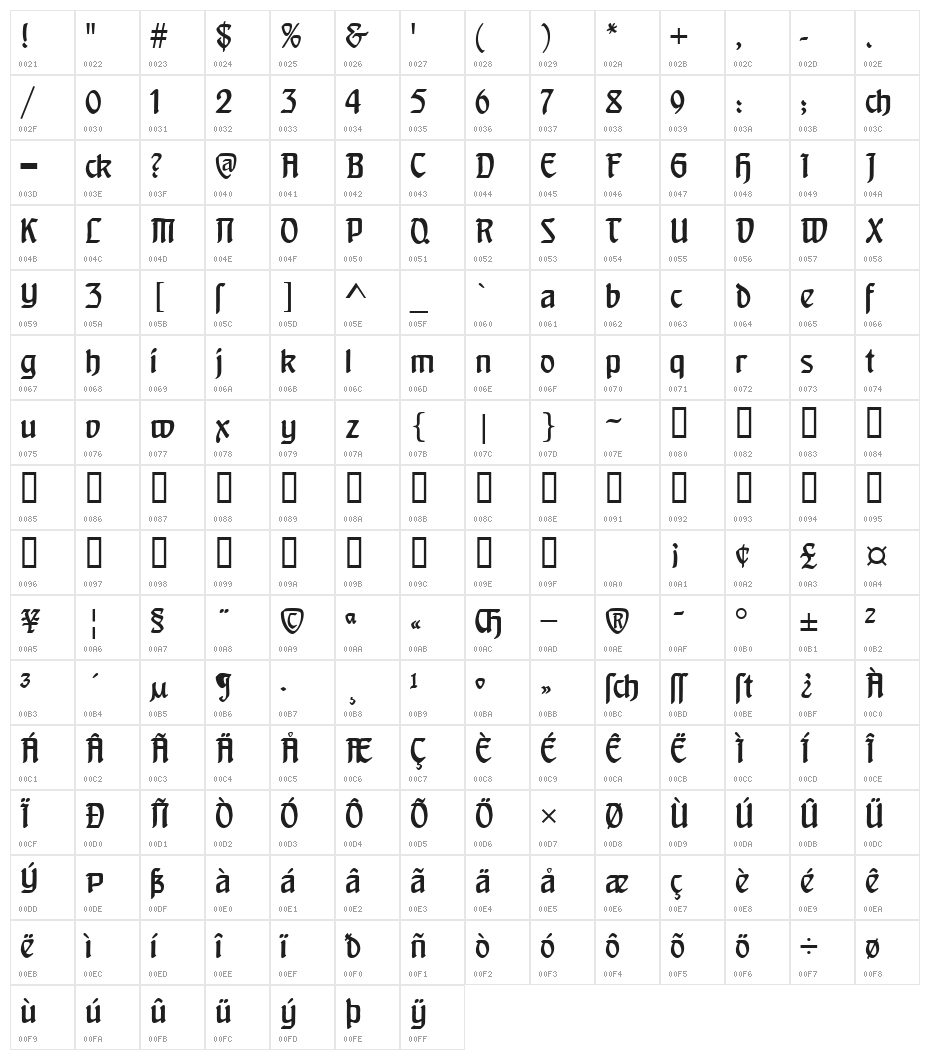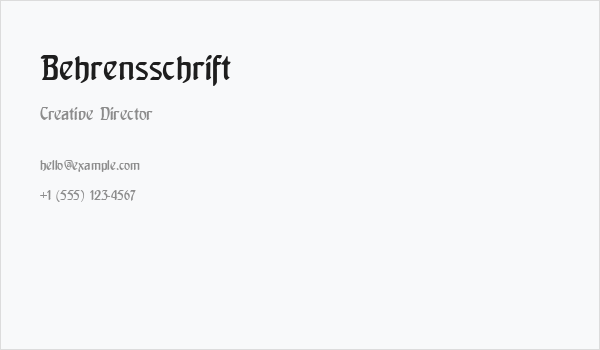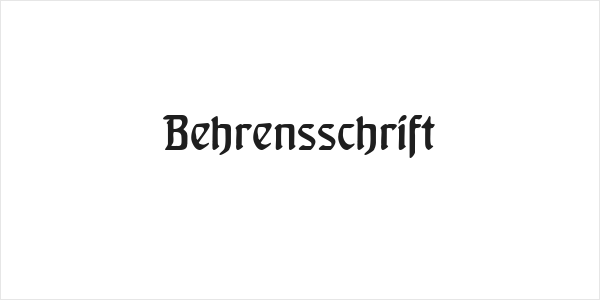
Behrensschrift Font
Behrensschrift Description
This font exhibits a distinct and bold style reminiscent of early 20th-century German design. The characters are angular and sharp, with a strong emphasis on vertical and horizontal lines, giving it a structured and formal appearance. The uppercase letters are particularly striking, with unique flourishes that add a touch of elegance. The lowercase letters maintain the same angularity, ensuring consistency throughout the typeface. Numbers and special characters are equally well-crafted, fitting seamlessly with the overall aesthetic. This font is ideal for projects that require a historical or classical touch, while still maintaining readability.
| Proposed Projects | Ideal for historical documents, posters, branding, and any design requiring a classical or vintage touch. |